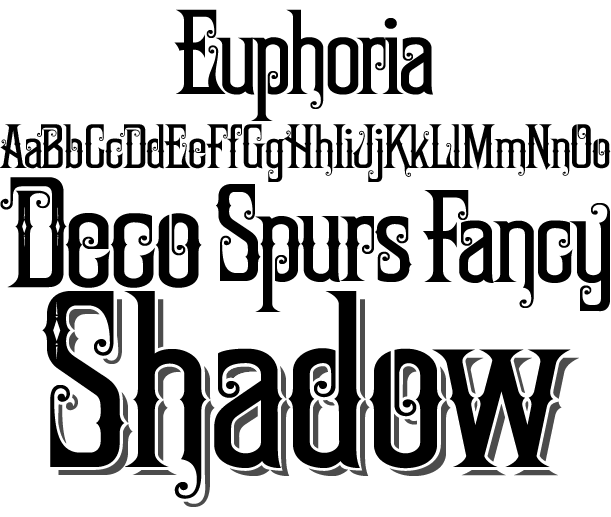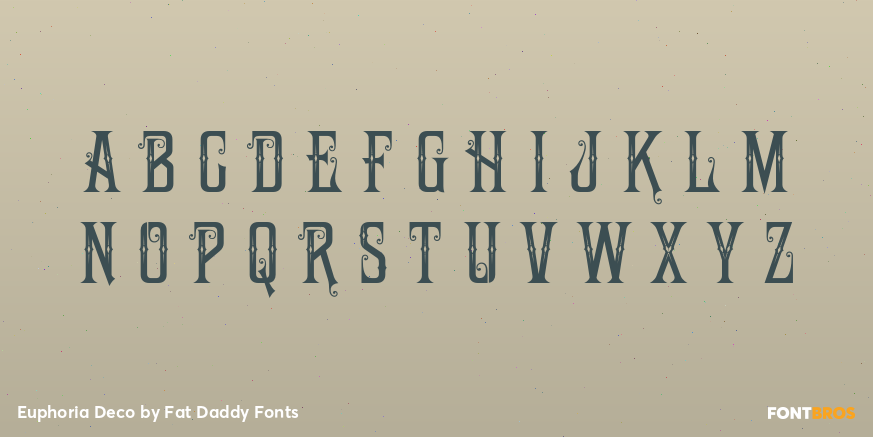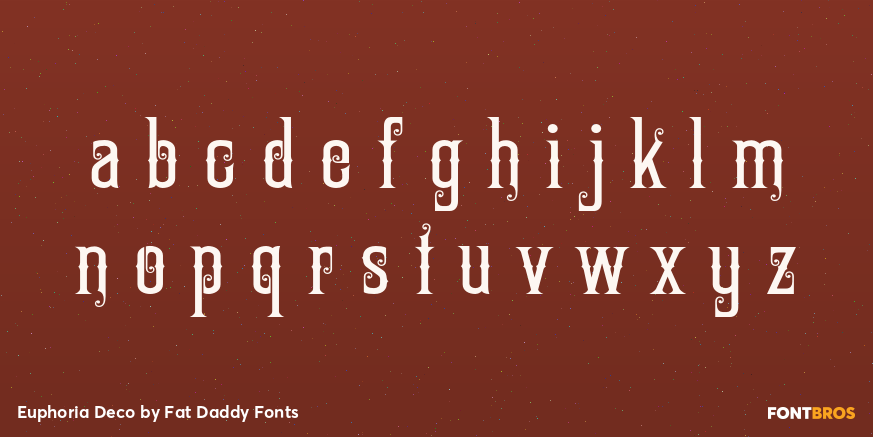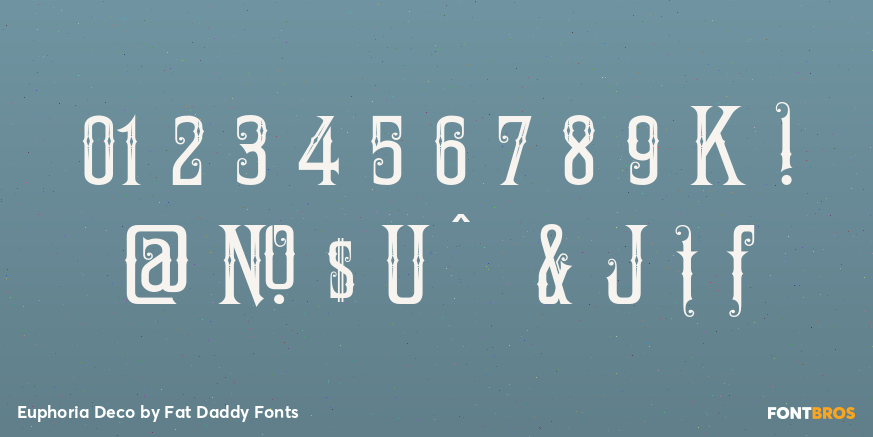
Euphoria Deco
Font Family by Fat Daddy Fonts
Inspired by an old advertising letter style used throughout the early 1900's. Font set includes 5 versions.